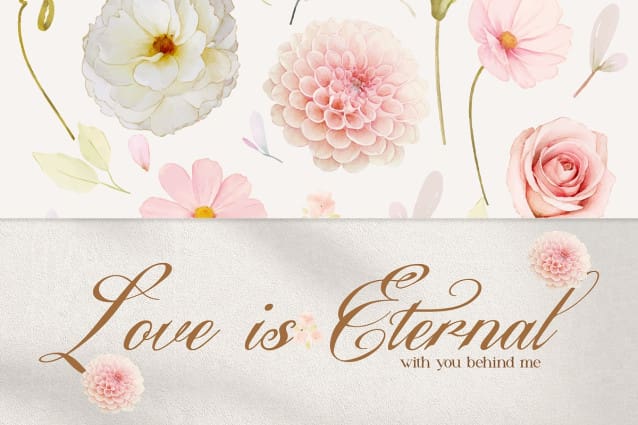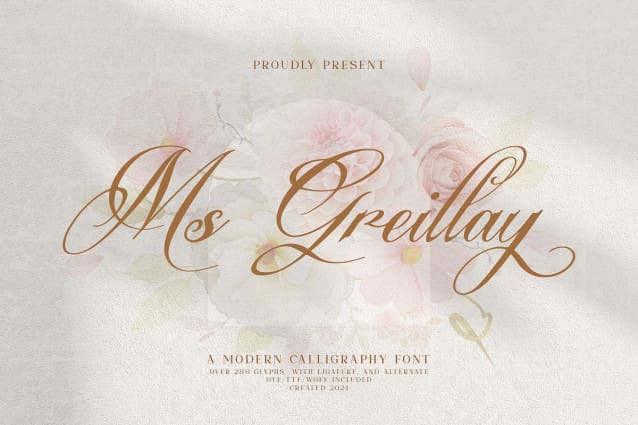
Ms Greillay Font
Ms Greillay Font | Modern Calligraphy, from Denustudios, suitable for any projects such as: logos, branding projects, homeware designs, product packaging, mugs, quotes, posters, shopping bags, t-shirts, book covers, name card, invitation cards, greeting cards, label, photography, watermark, special events, and all your other lovely projects that need a beautiful script taste.